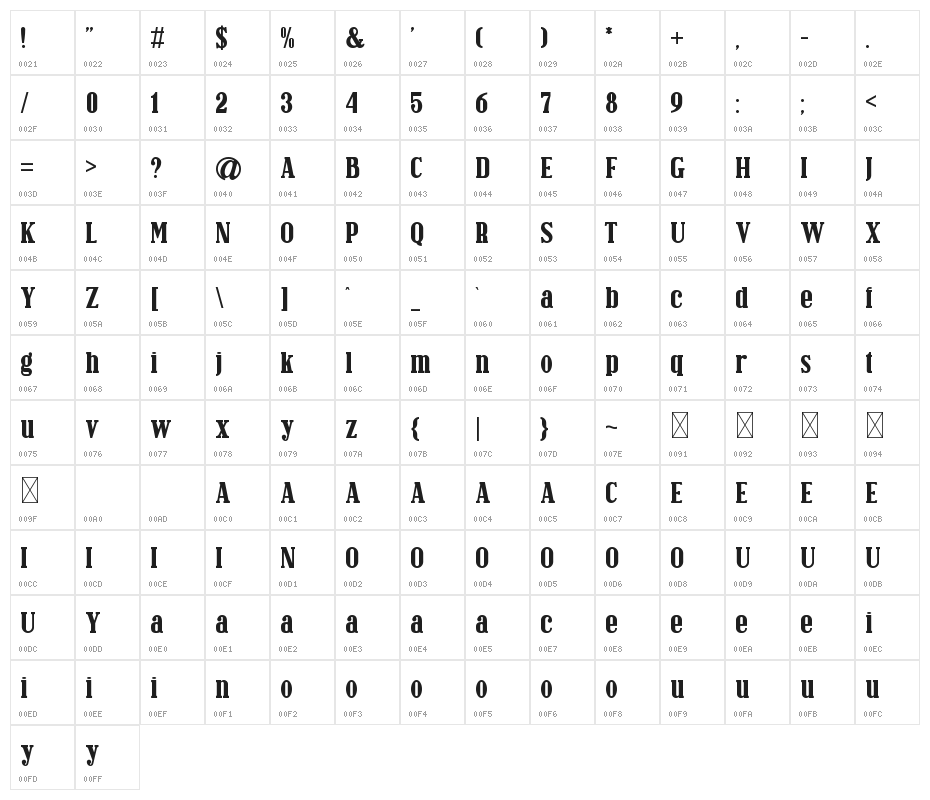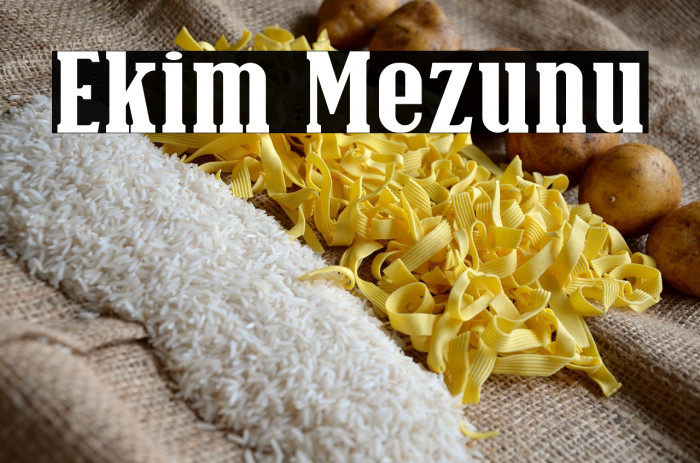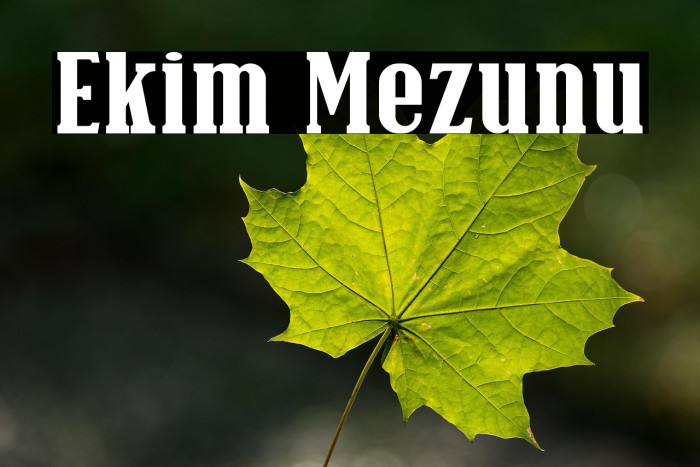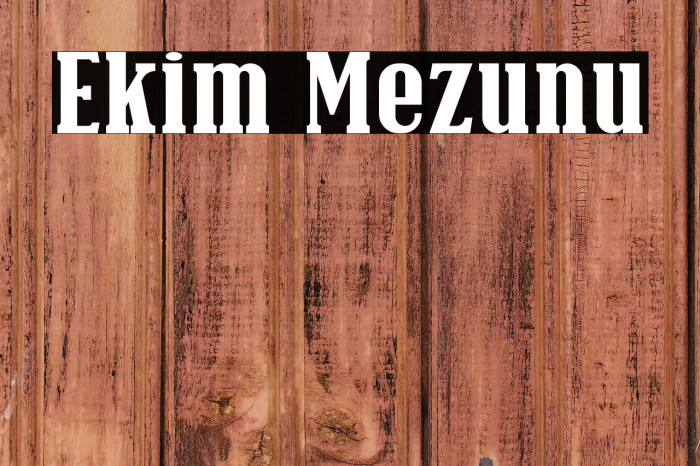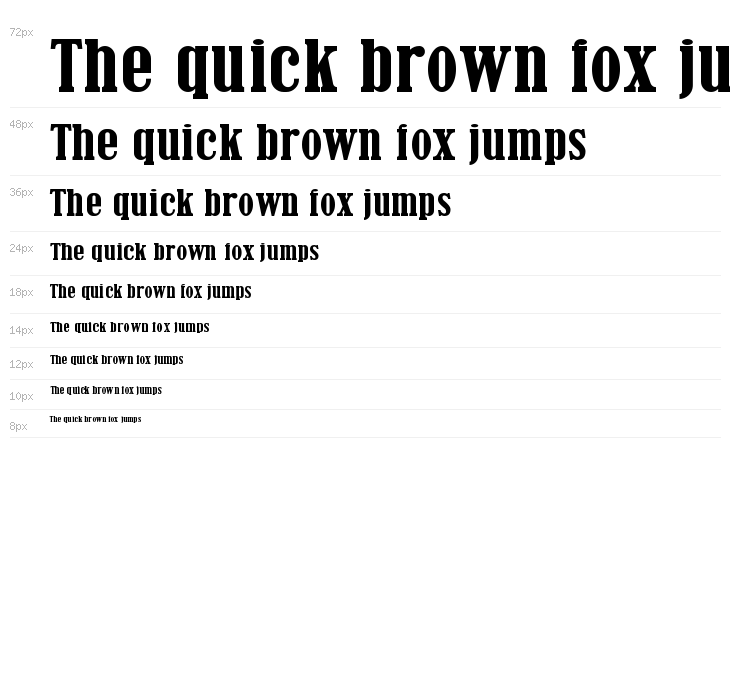
Ekim Mezunu Font
Ekim Mezunu Description
This font features a bold and commanding presence with its thick, slab serif design. The characters are robust and sturdy, showcasing a strong vertical emphasis with slightly curved serifs that add a touch of elegance. The uppercase letters are particularly striking, with a uniform height that conveys authority and confidence. The lowercase letters maintain the same boldness, ensuring readability and consistency across various text sizes. Numbers and special characters are equally well-crafted, making this font versatile for both formal and creative applications. Its overall style is reminiscent of vintage typefaces, yet it retains a modern appeal suitable for contemporary designs.
Overall StyleVintage, Modern
Proposed ProjectsIdeal for headlines, posters, branding, and editorial design where a strong, impactful typeface is needed.